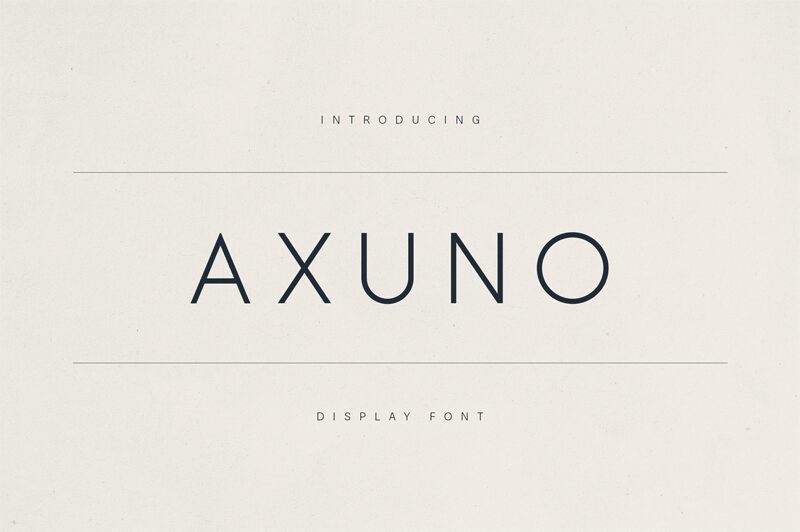
Axuno font, a minimalistic font by VPcreativeshop, is an elegant typeface inspired by careful geometry. A sleek and modern design makes this free sans serif font sophisticated and suitable for contemporary applications. The letters’ stylish finish and clean character give them an overall professional ambiance distinguished by excellence.
This resource is perfect for branding and identity designs, professional business cards, formal invitation cards, posters, and infographics. Its authentic, legible design is also a strong choice for product and packaging designs, labels, websites, and apps. Use it in magazines, printed or digital, alongside photographs for a cinematic touch.